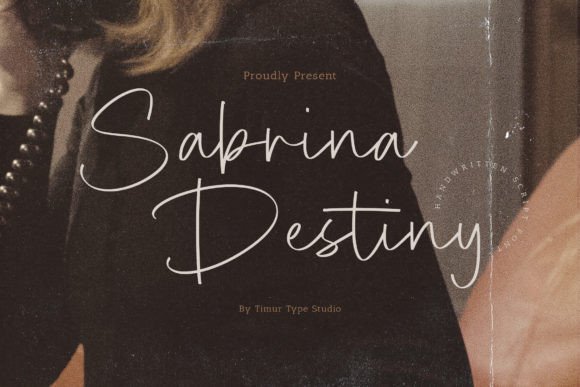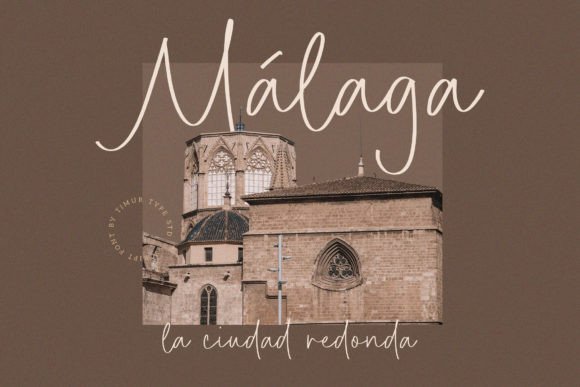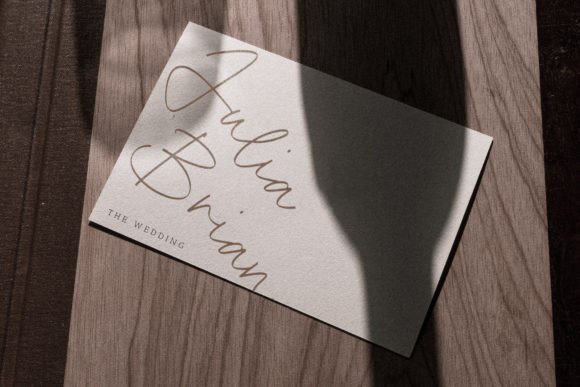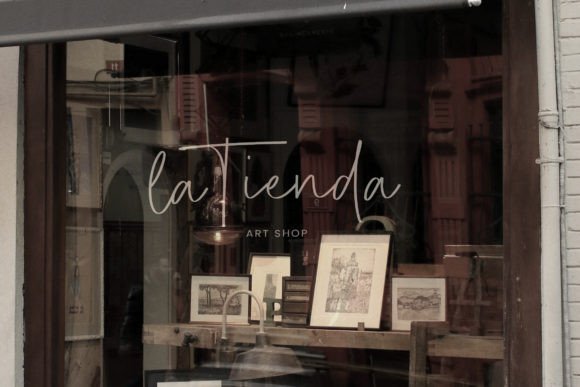
Sabrina Destiny Font: Elegant Script for Wedding Invitations & Branding
About the Sabrina Destiny Font
Crafted with precision, the Sabrina Destiny Font is ready to bring your ideas to life. Sabrina Destiny is a stylish and incredibly elegant script font. It looks stunning on wedding invitations, thank you cards, quotes, greeting cards, logos, business cards and every other design which needs a handwritten touch.
Its elegant, flowing forms make Sabrina Destiny ideal for projects requiring a touch of refined sophistication. Use it effectively for branding materials emphasizing luxury, high-end products, or special events like weddings. It also excels in short-form text applications such as logos, headlines, and short quotes on packaging or posters. However, avoid using it for lengthy body text or UI elements; its decorative nature makes it less legible for extended reading.
Pairing Sabrina Destiny with a clean sans-serif like Montserrat or a geometric sans-serif like Futura creates a balanced contrast, letting the script’s elegance shine without overwhelming the design. For a warmer feel, consider pairing it with a serif font like Garamond or Playfair Display.
The overall personality of Sabrina Destiny is sophisticated and graceful, lending itself to brands and projects that convey luxury, timelessness, and a sense of refined charm. Avoid using it where a modern, minimalist, or playful feel is desired.